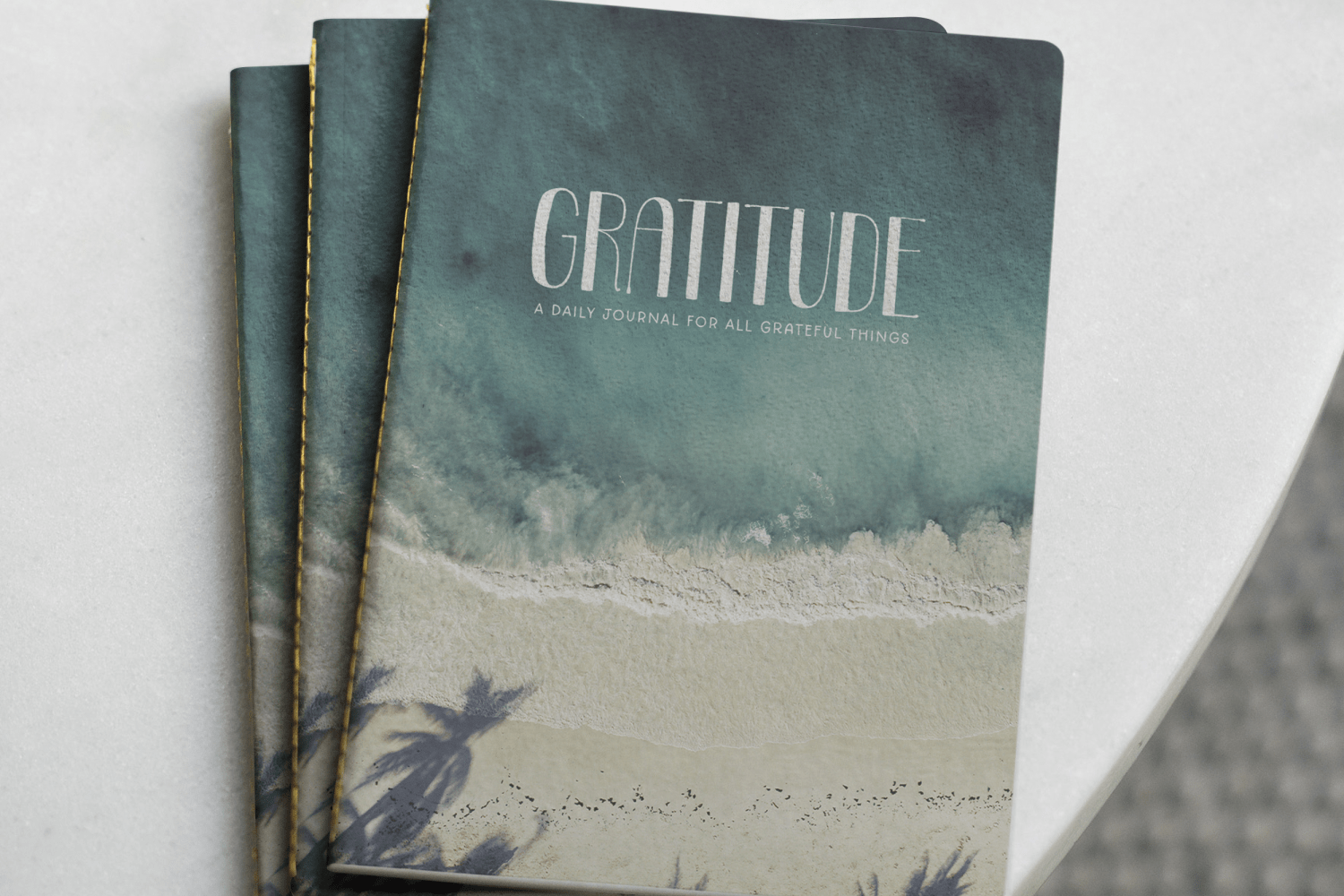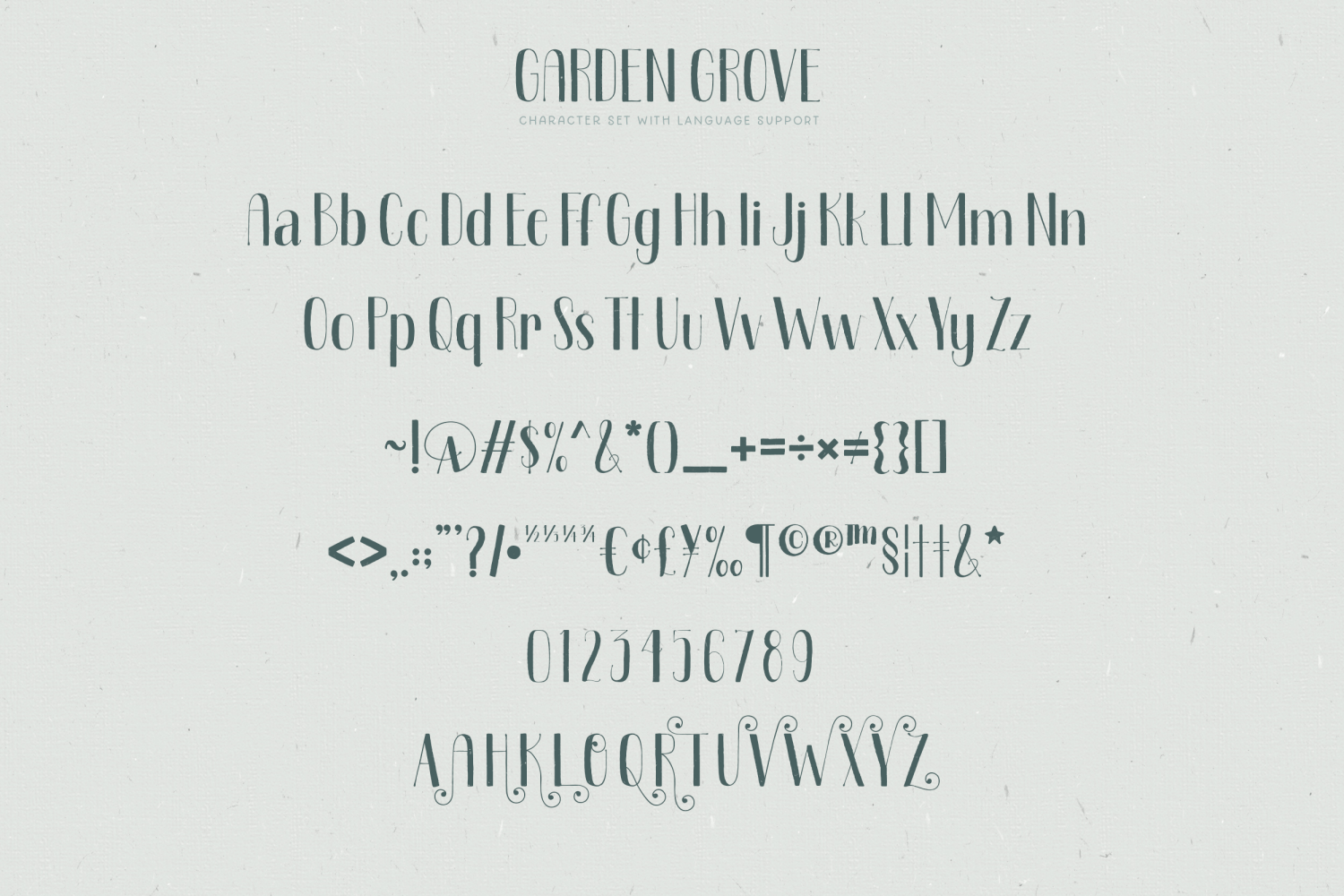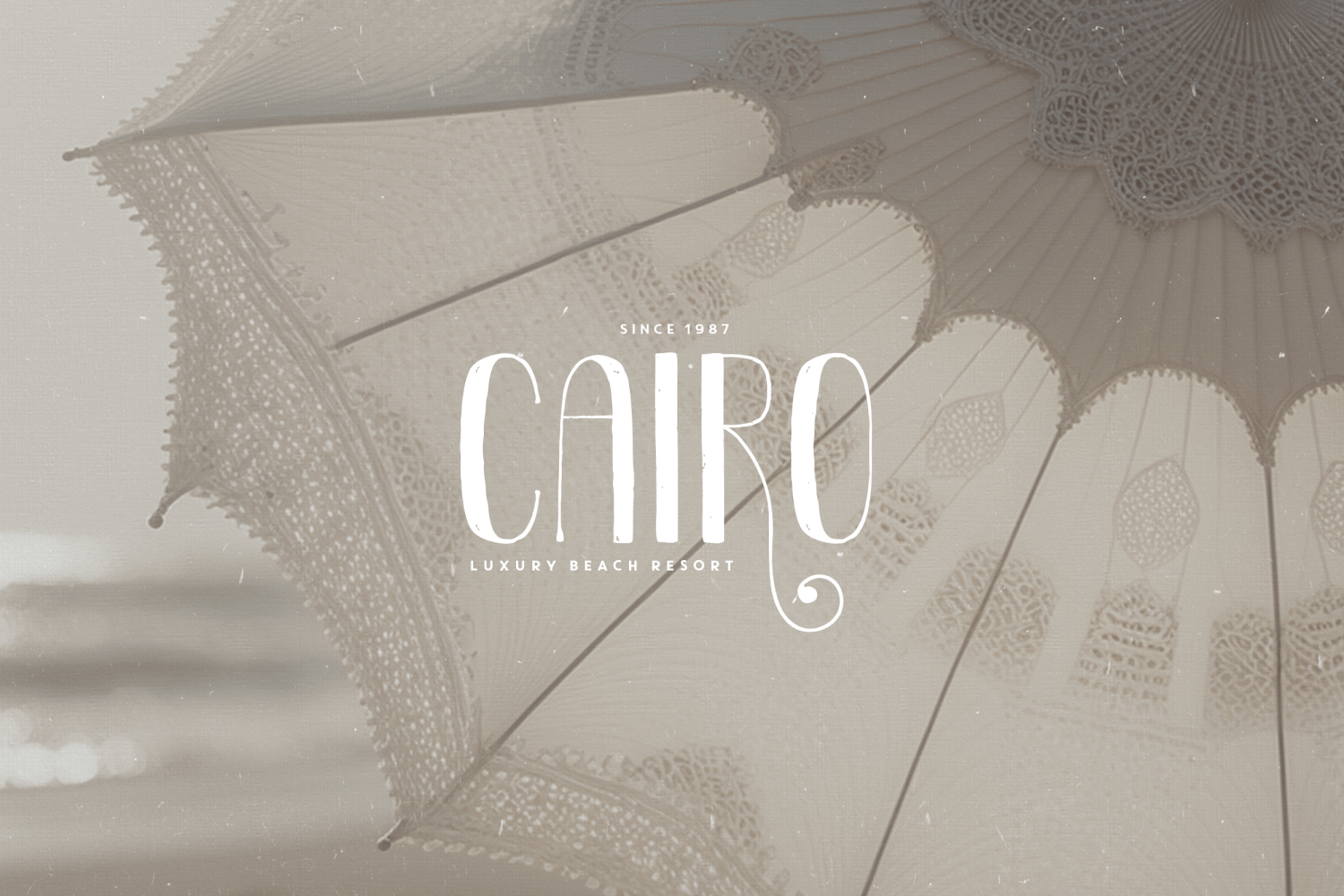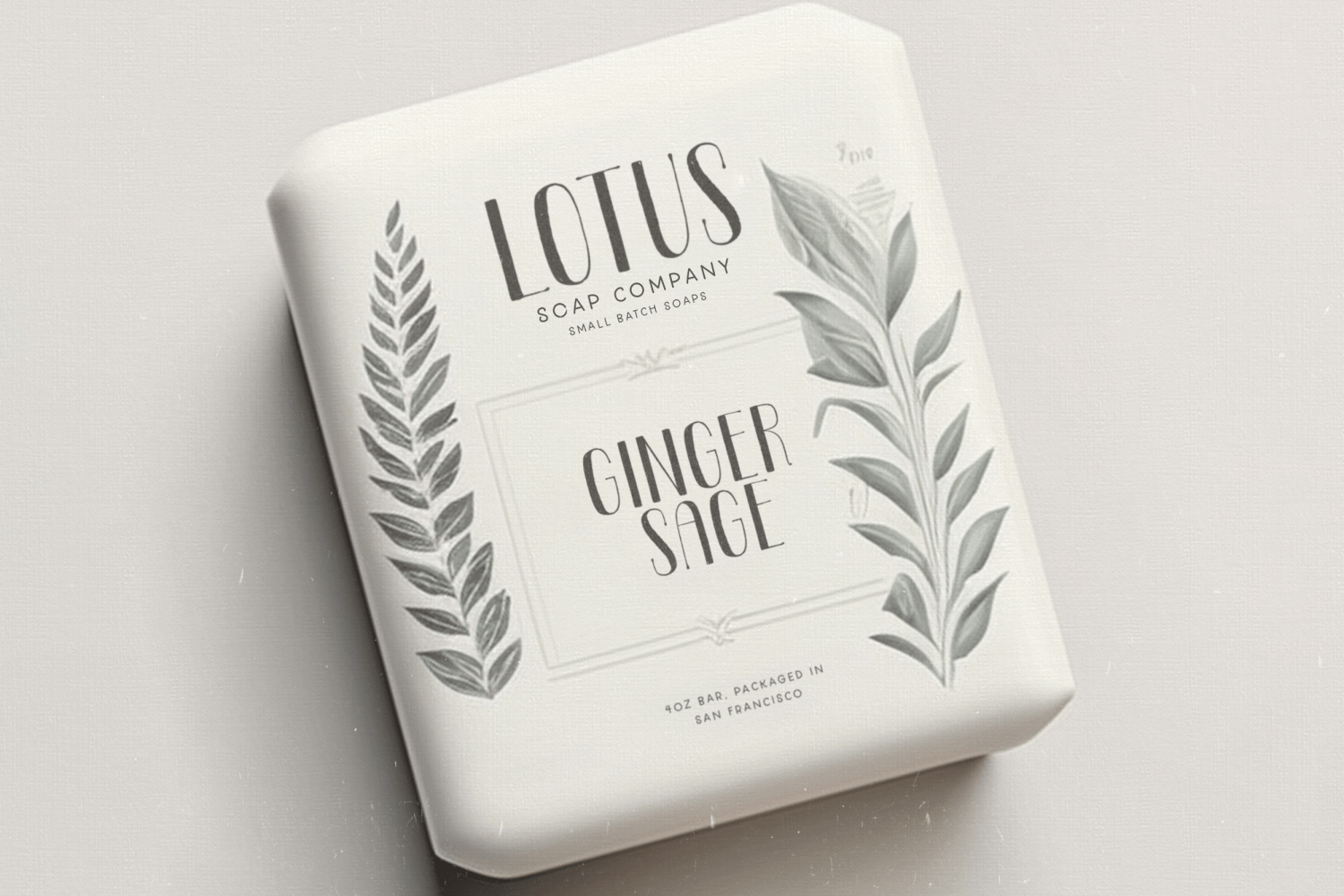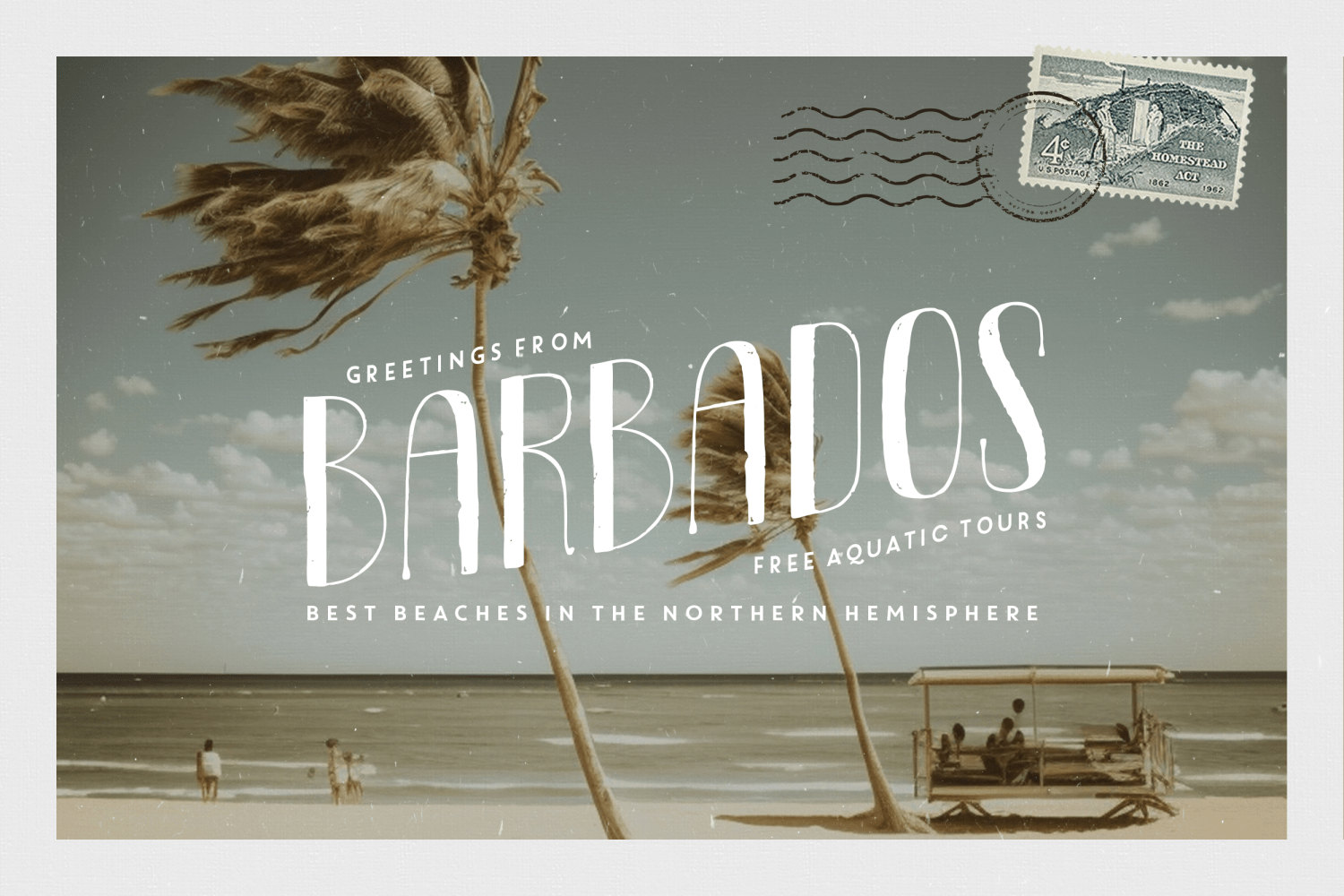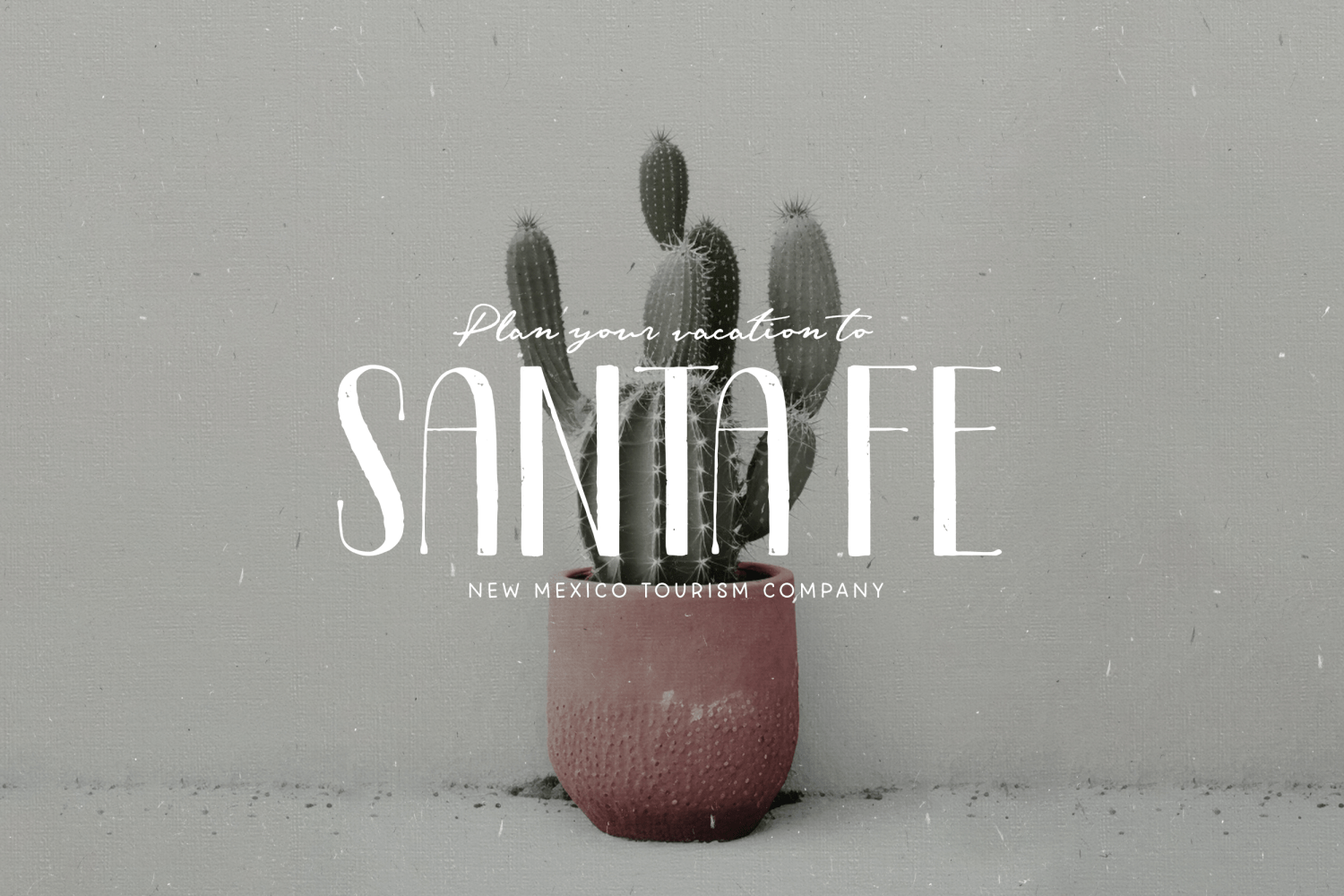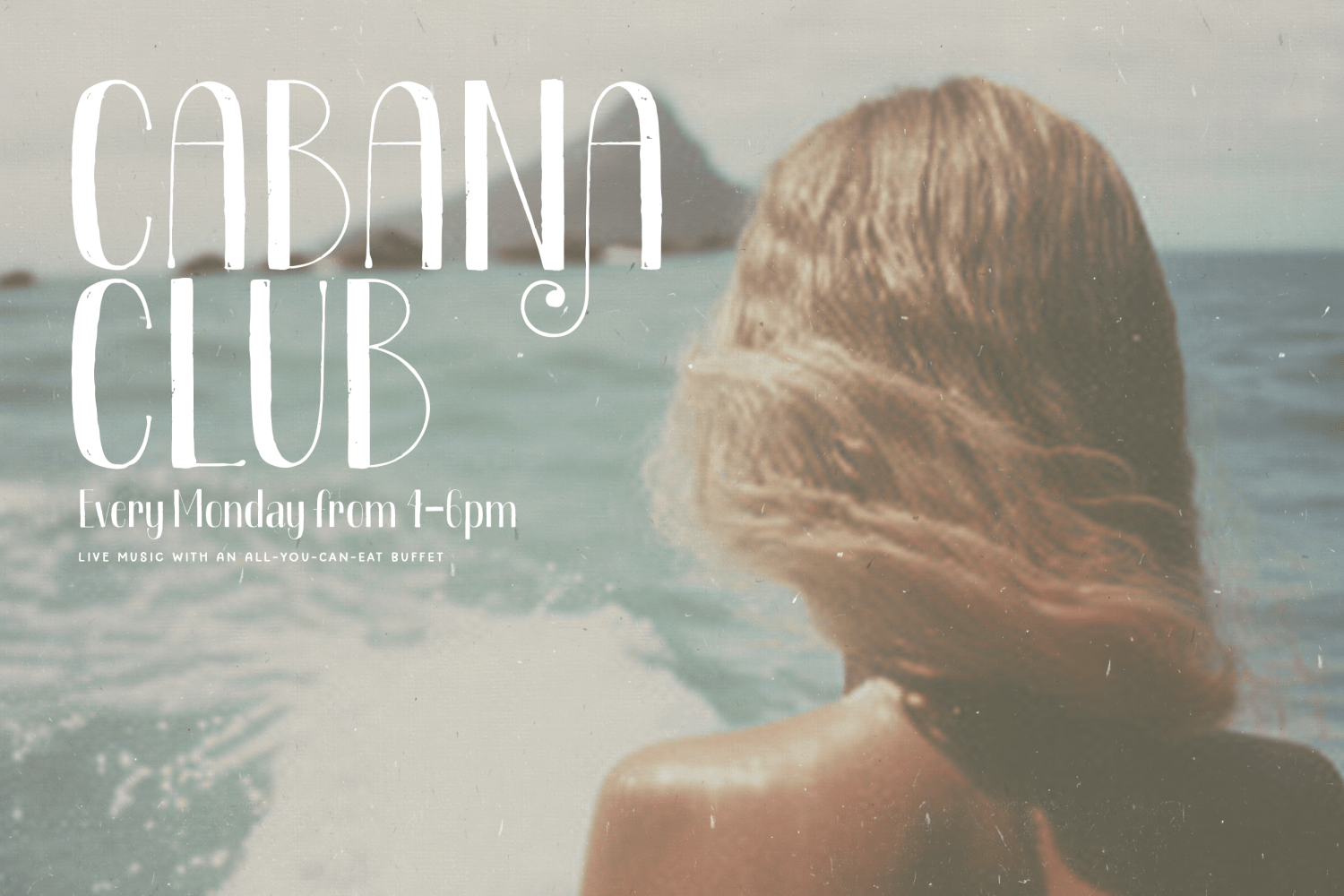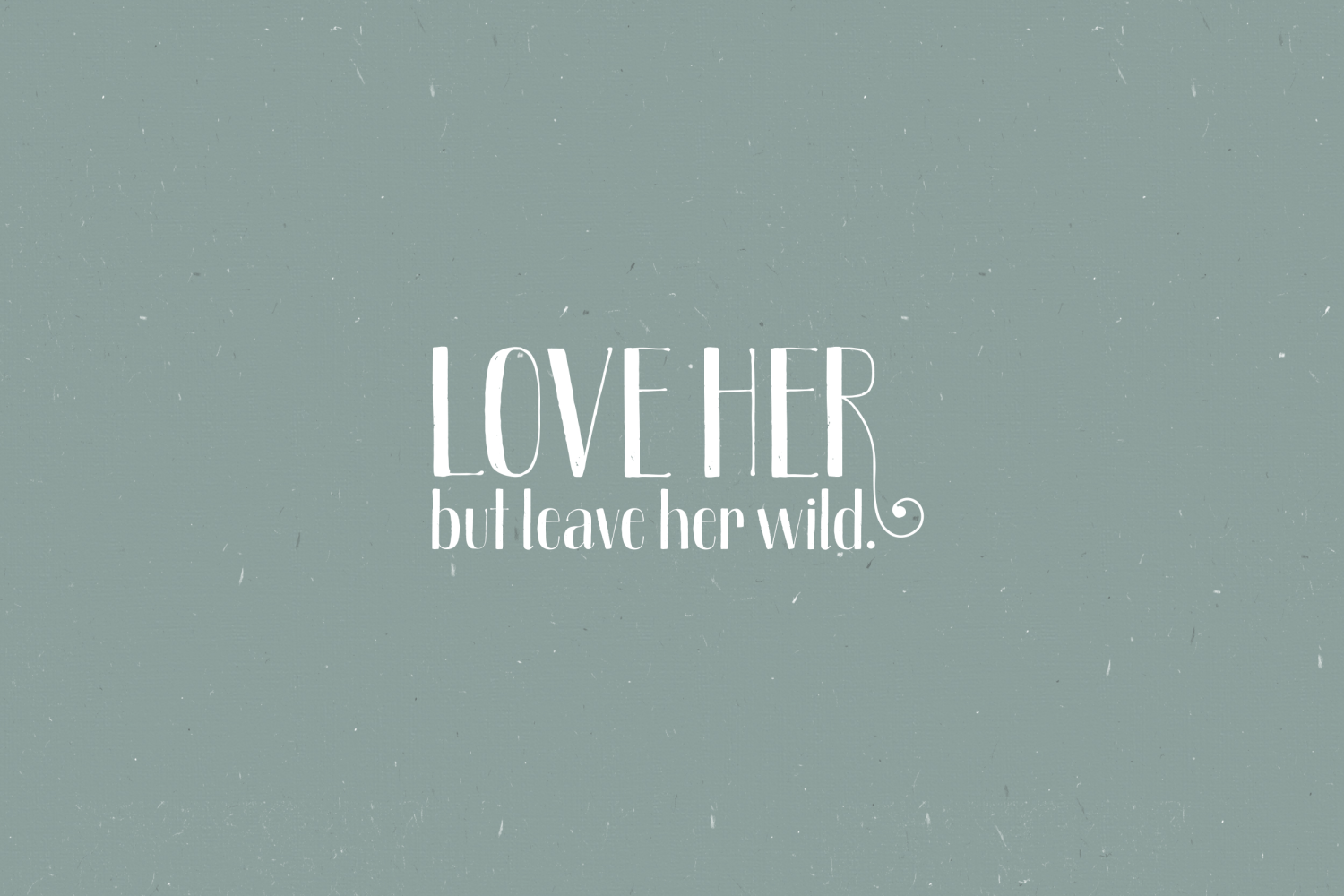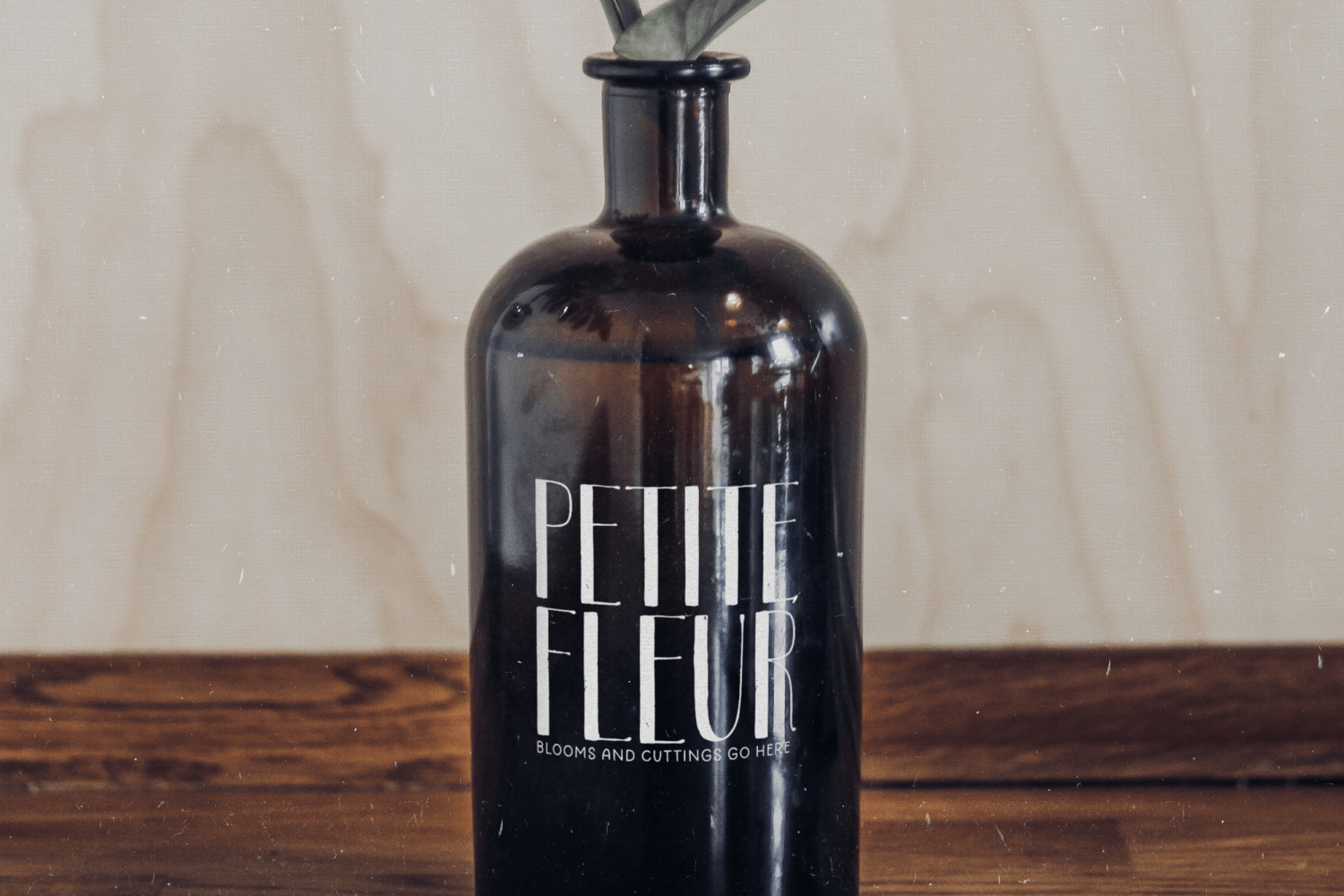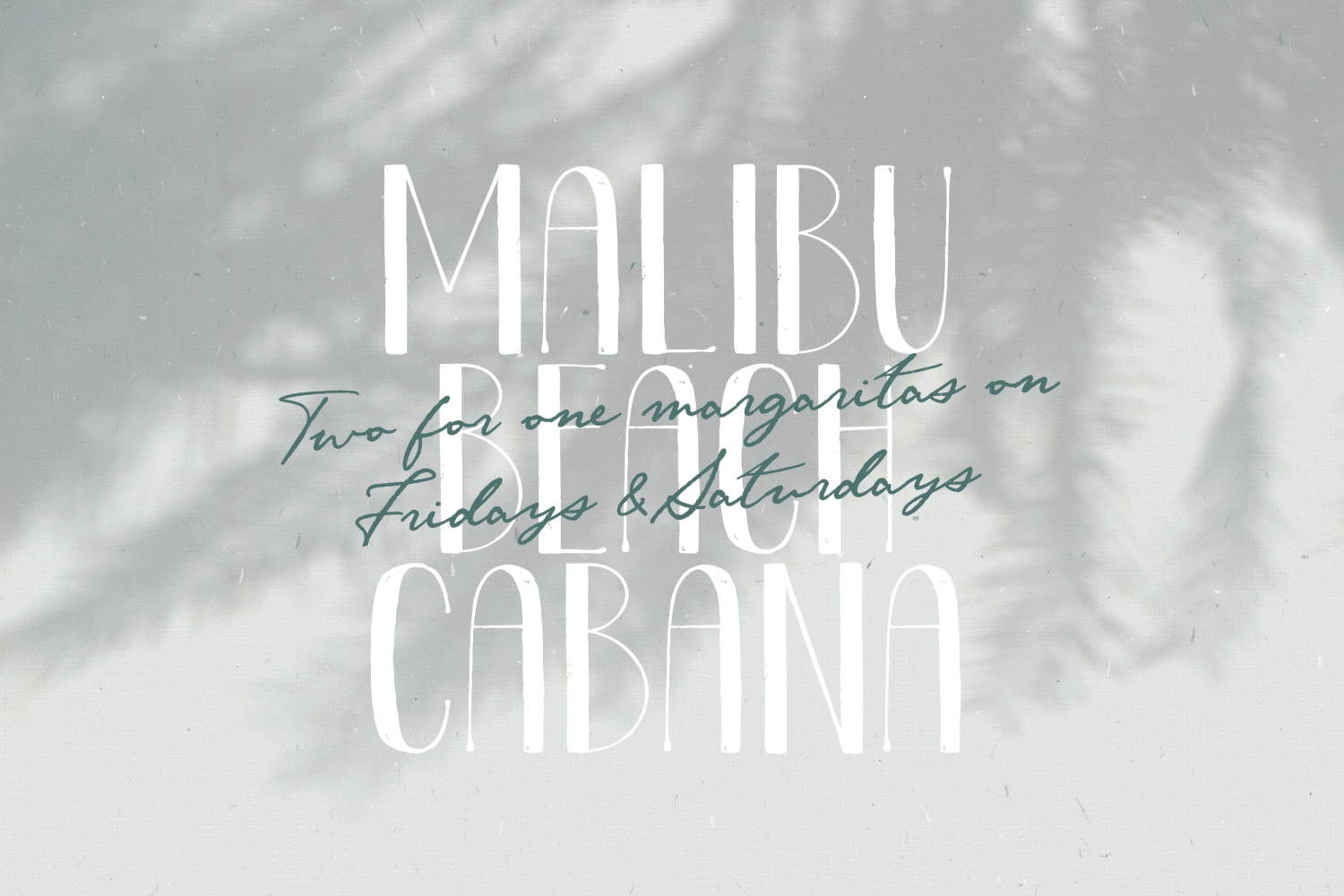
Garden Grove
Font Family by Callie Rian & Co
Say hello to Garden Grove, a decorative, hand-drawn typeface that's sure to turn heads on just about any headline or packaging. Garden Grove boasts both upper and lowercase glyphs, standard numerals, punctuation, Western European language support and a series of select, decorative uppercase ligatures for a unique, retro vibe.